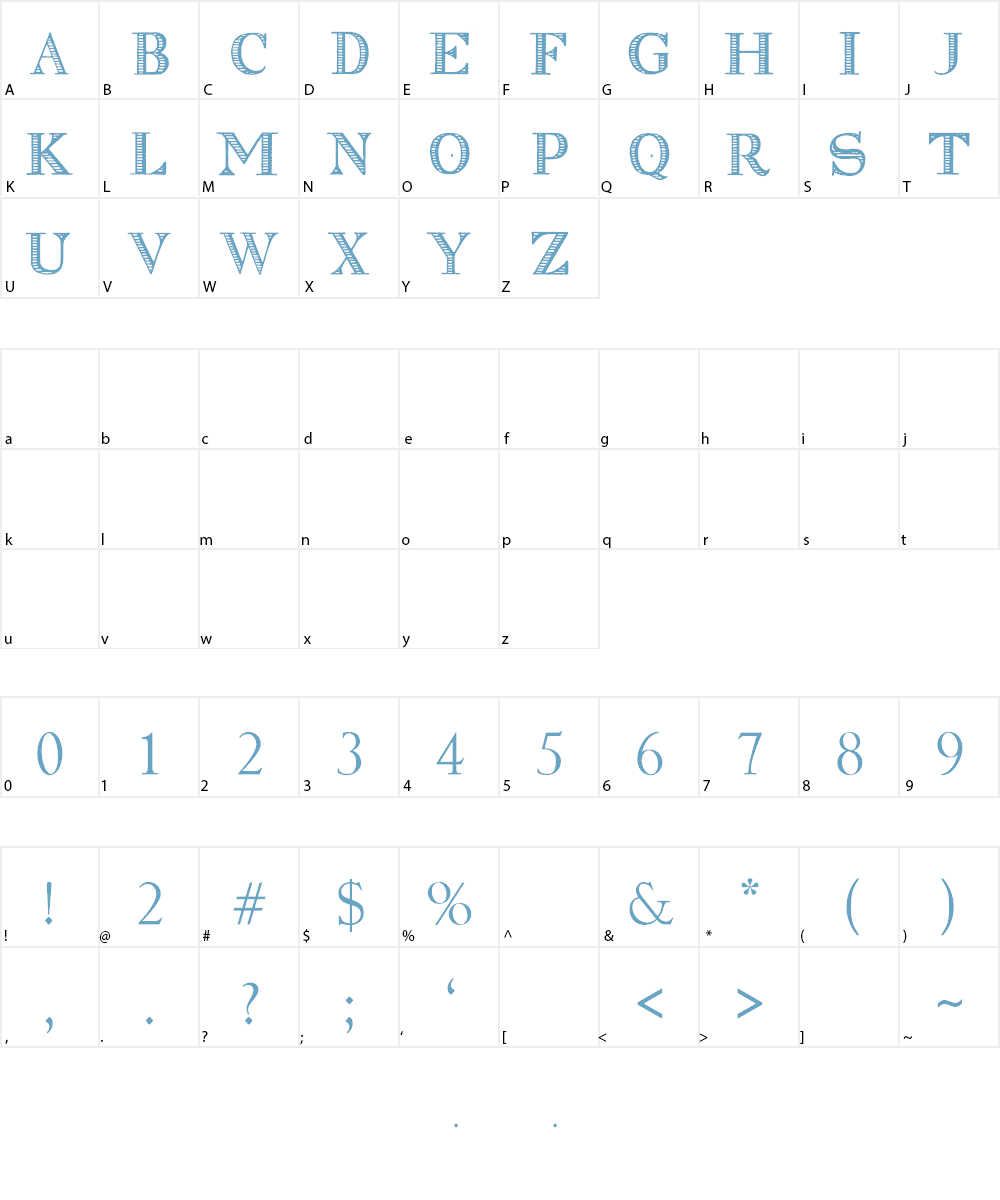
This is demo version of my font Clasica Striped. It was orginaly designed by Prof. Wilhelm Krause . DEMO have capital letters only. If you want to buy commercial use version of this font visit my store at: